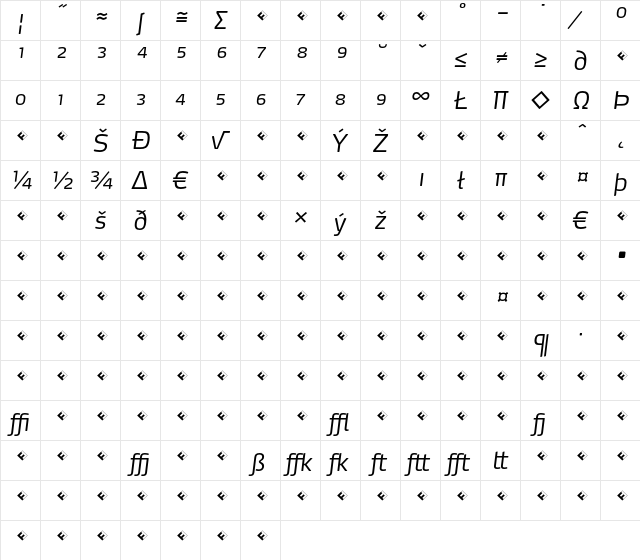
Max-LightItalicExpert Regular Font Preview
Design Context for Max-LightItalicExpert Typeface
Max-LightItalicExpert offers clean, dependable letterforms without strong stylistic allegiance, making it a practical choice for designers who need flexibility. The dynamic lean of this cut emphasises speed and emphasis in any layout. Its slender proportions lend an understated elegance to any composition.
Pro Tip: Try Max-LightItalicExpert for annotation and caption copy alongside an upright companion — the contrast in angle creates a dynamic but ordered typographic system.